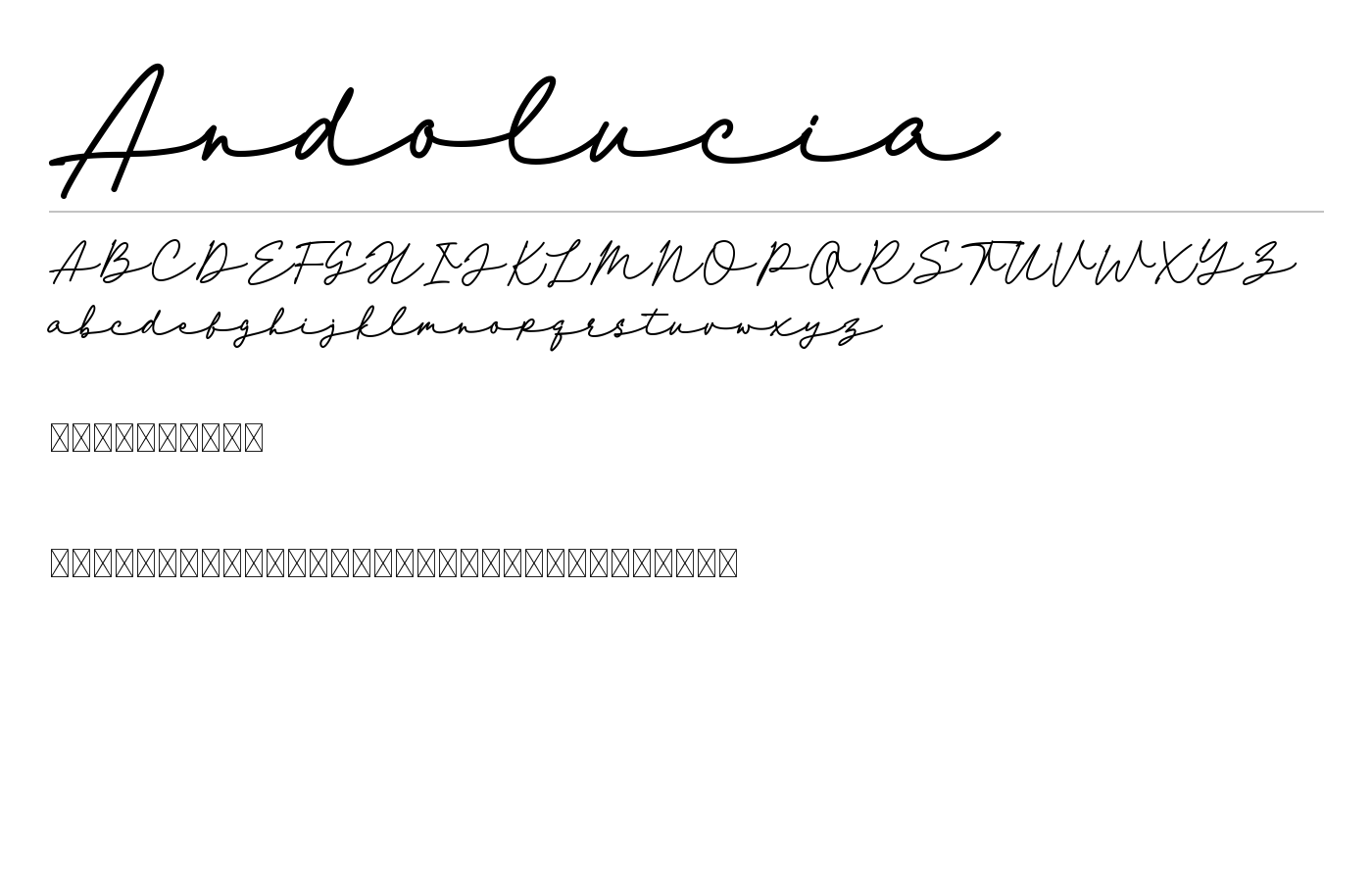
Andolucia is an elegant handwritten script font with a light and flowing style that mimics natural handwriting. Its slender, slightly slanted letterforms create a delicate and personal feel, making it perfect for invitations, branding, and any design that aims to convey sophistication and warmth. This font works especially well in creative and feminine contexts where a touch of charm and authenticity is desired.
Andolucia Font
About Andolucia Font
| Font family | Andolucia Font |